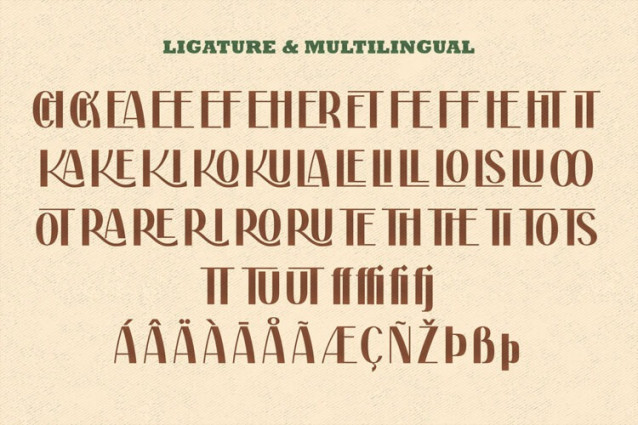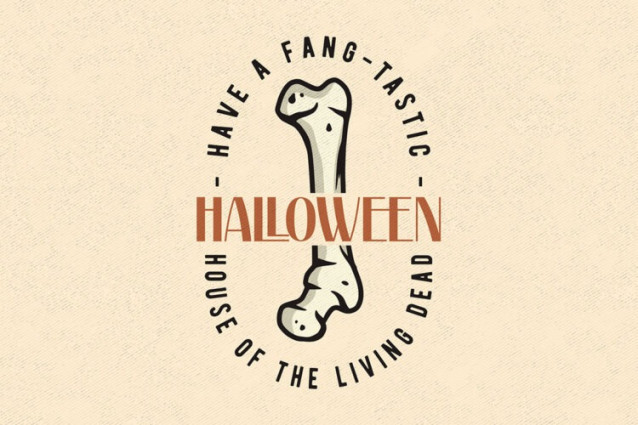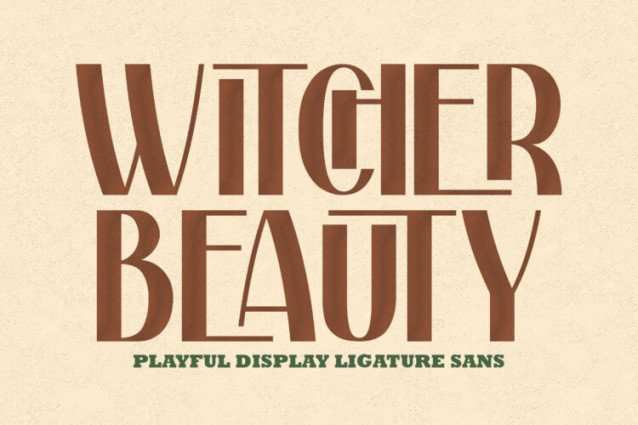
Witcher Beauty Font
Witcher Beauty Font is a playful display ligature san serif. This font is both modern and nostalgic and works great for Halloween, logos, magazine, social media. Already matched up and ready to be used together for your next design! Perfect for editorial projects, Halloween, Logo design, Branding, product packaging, magazine headers, or simply as a stylish text overlay to any background image.